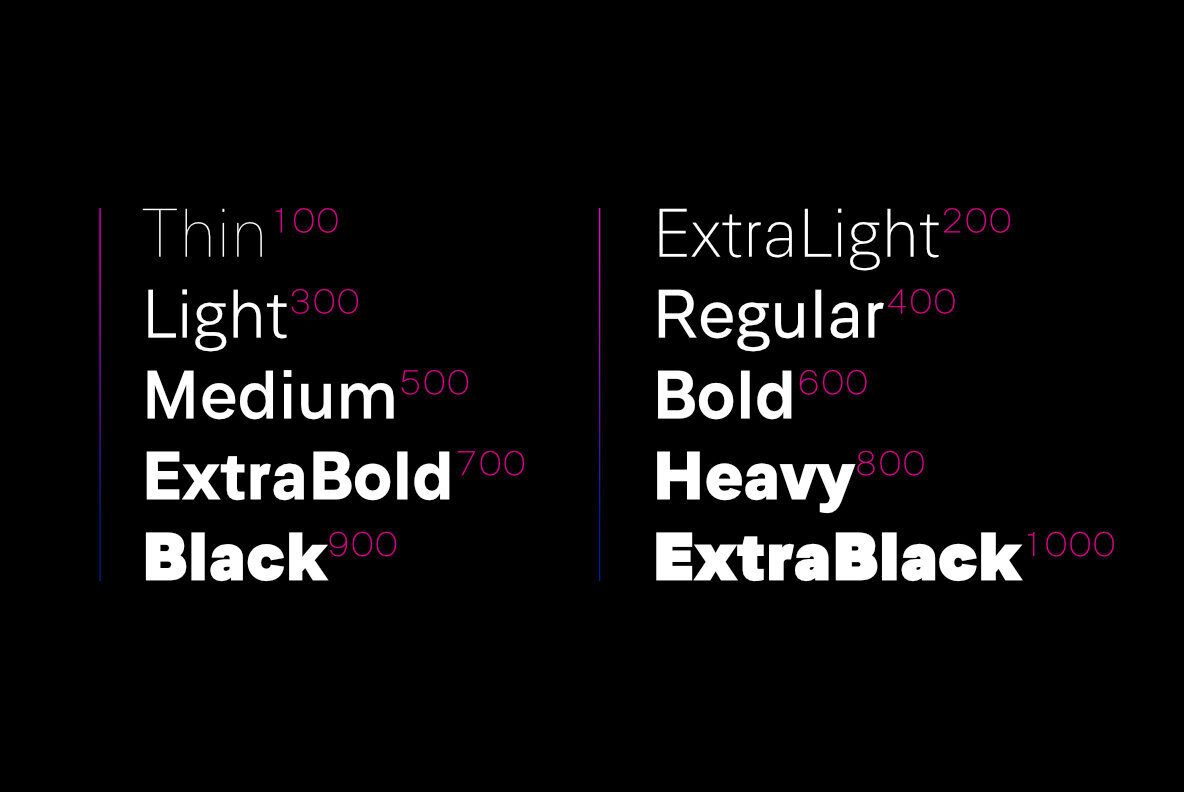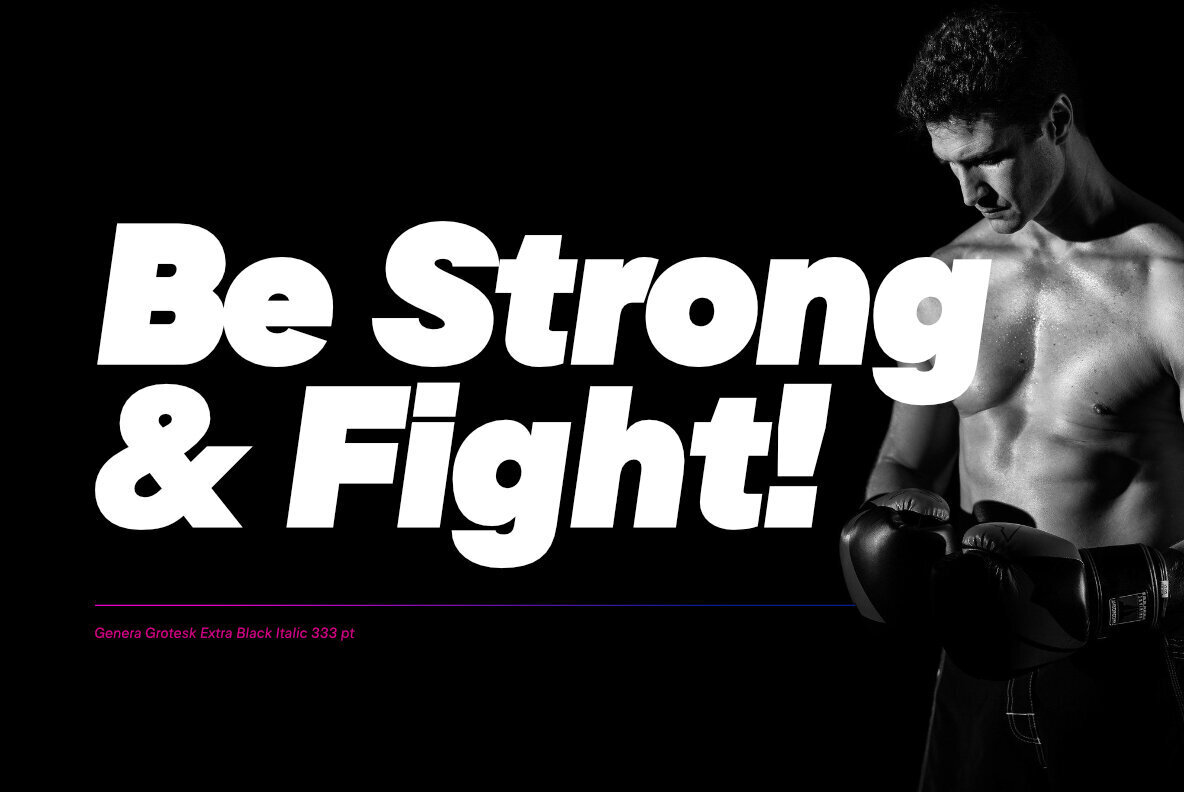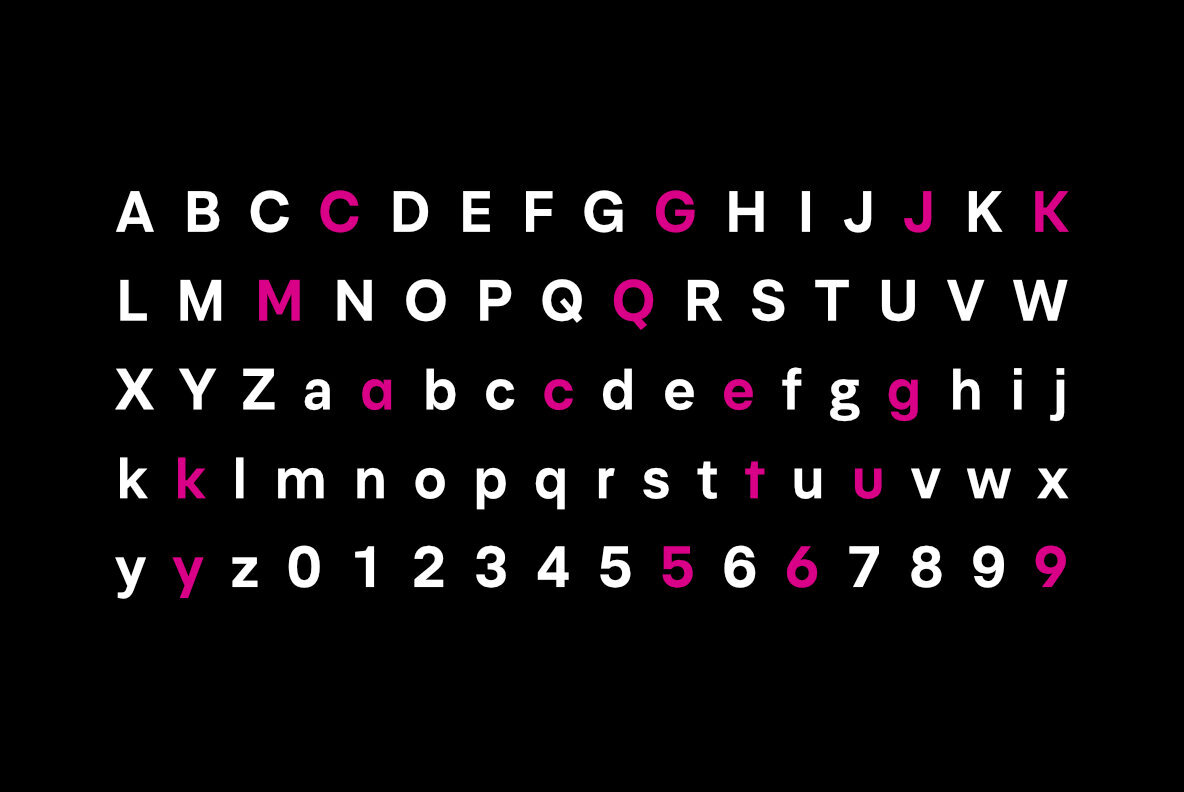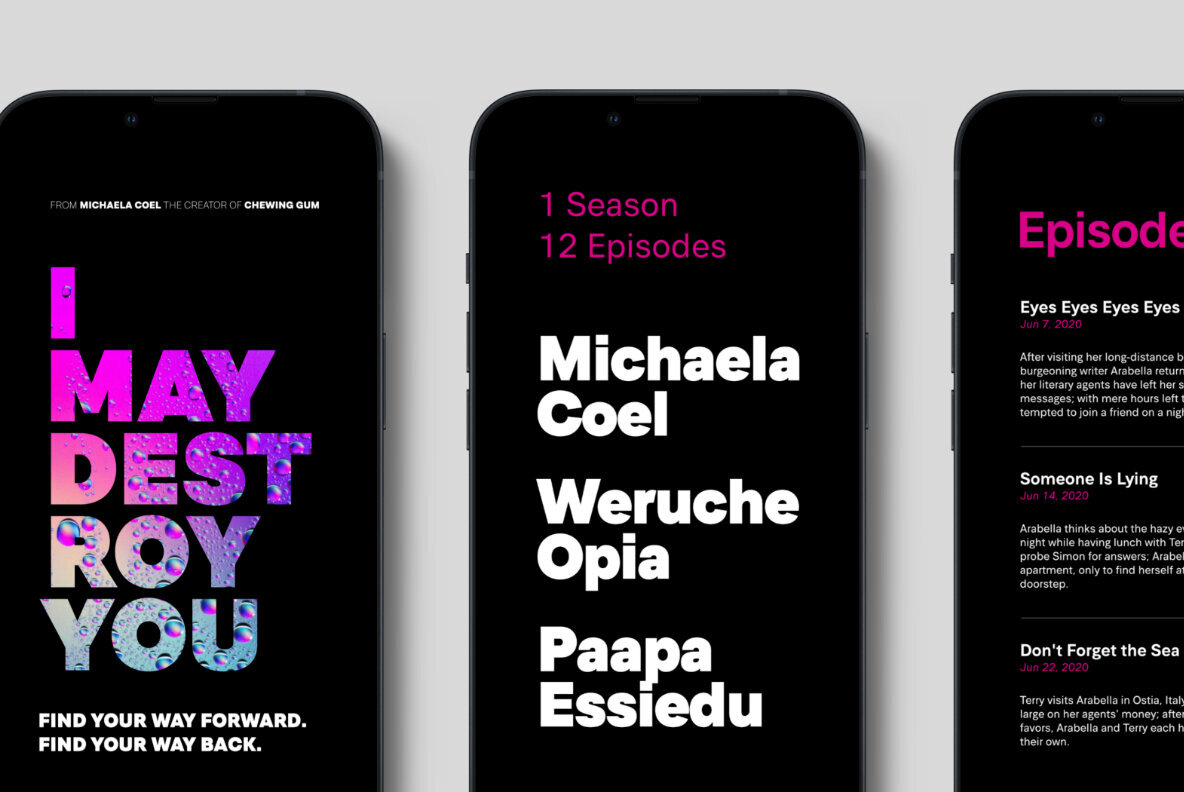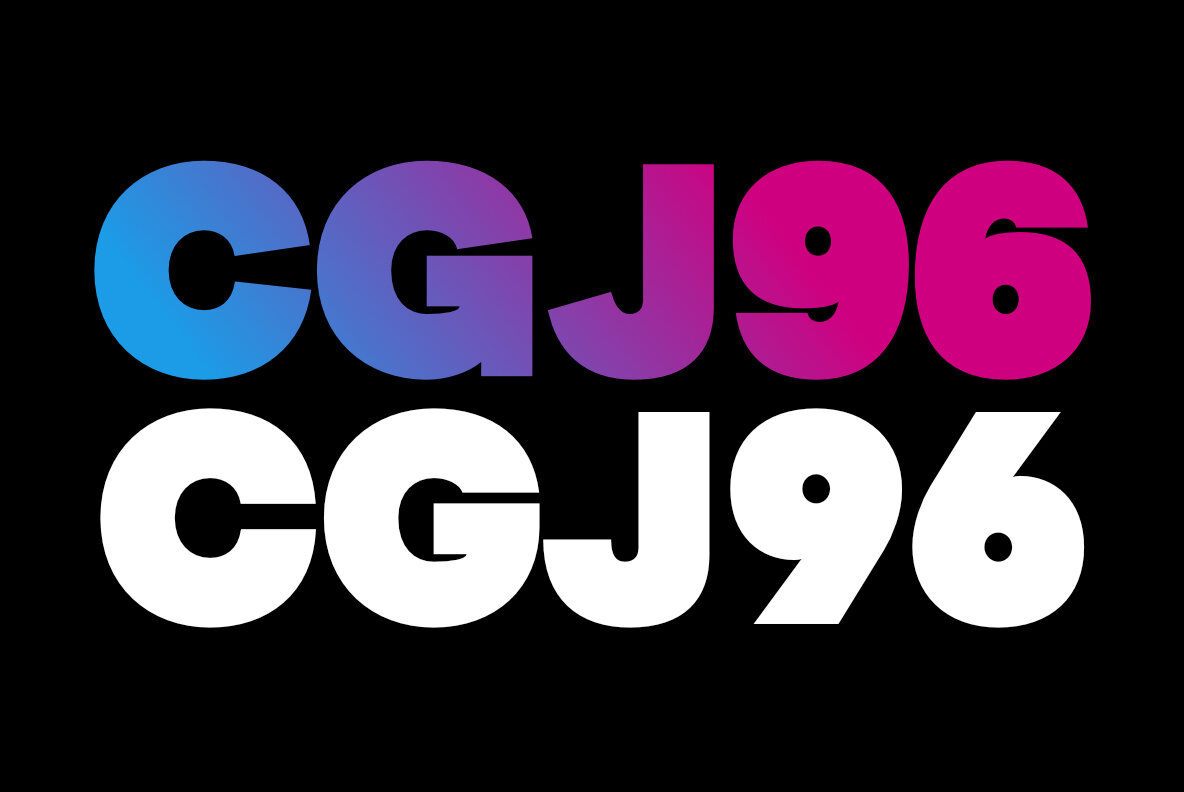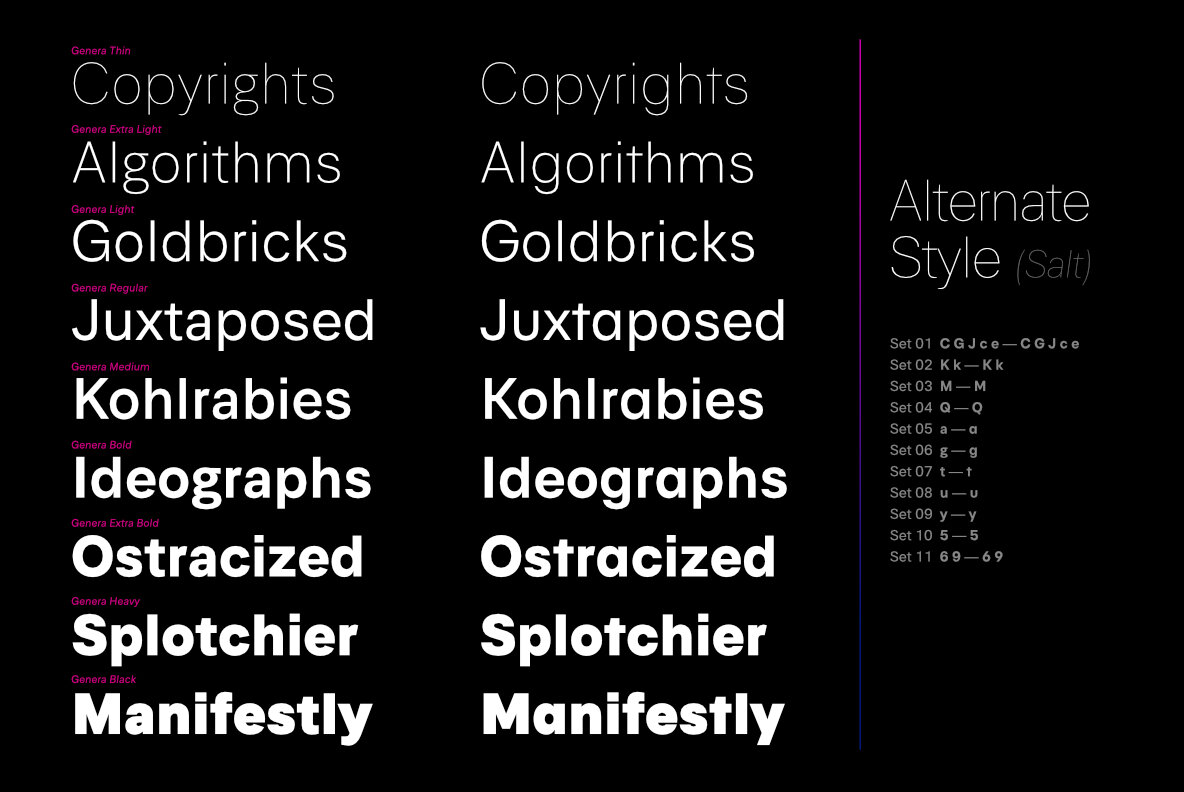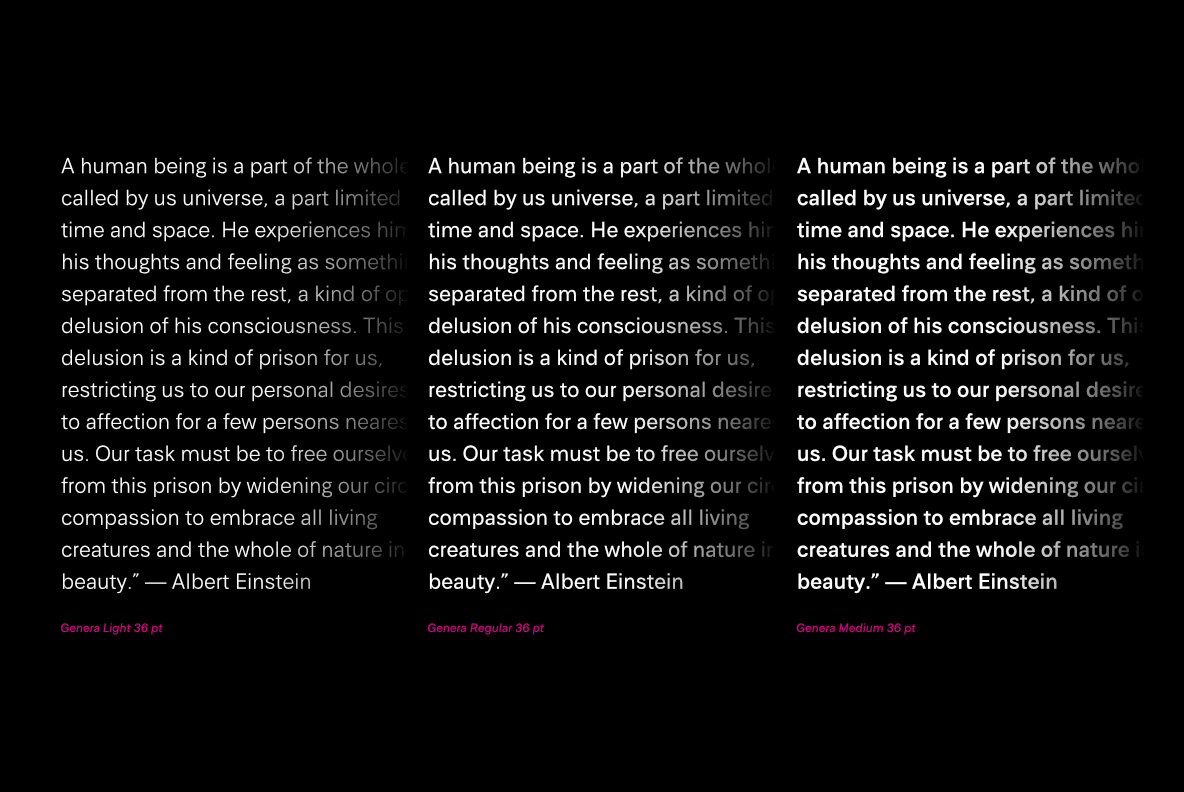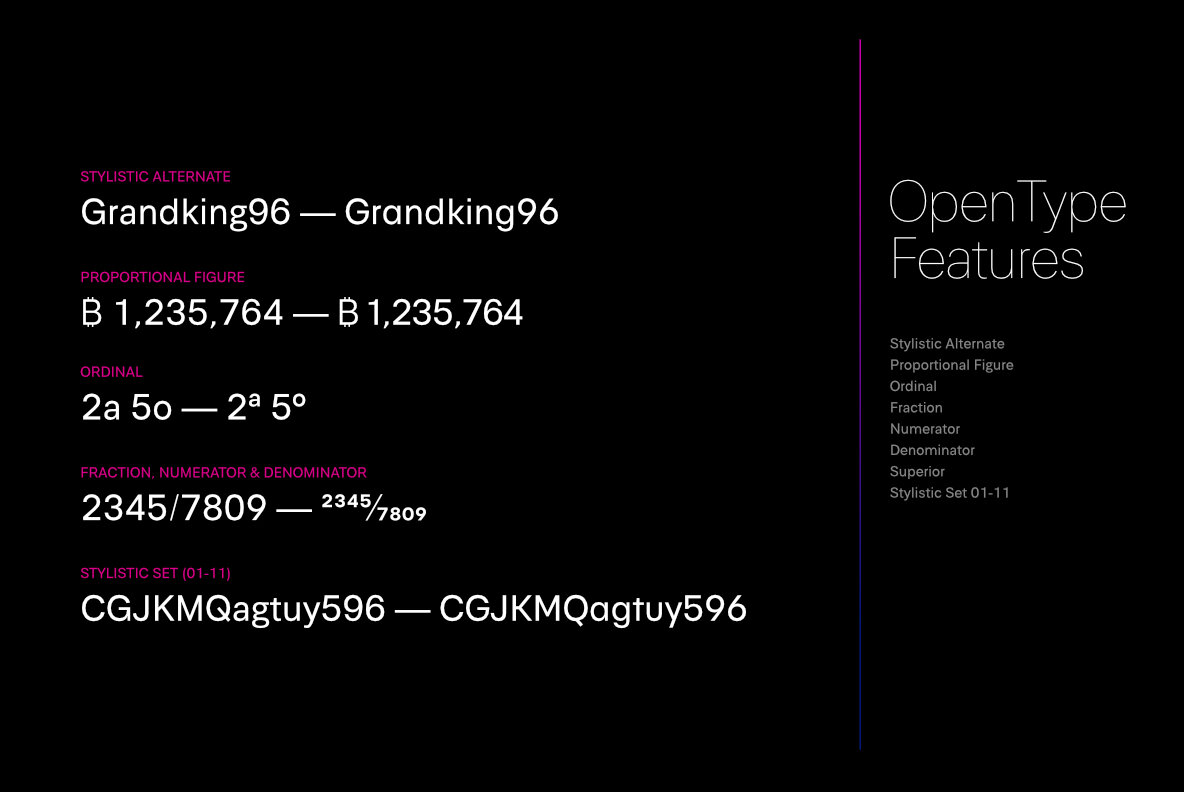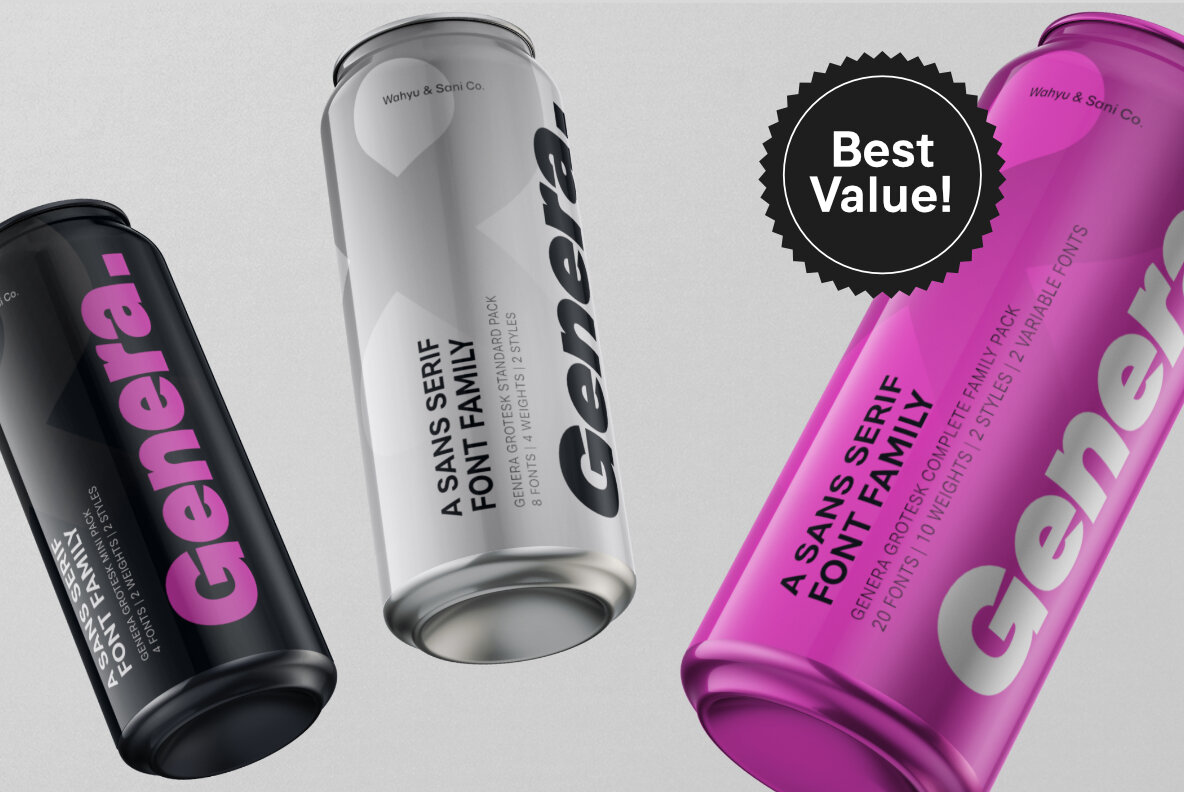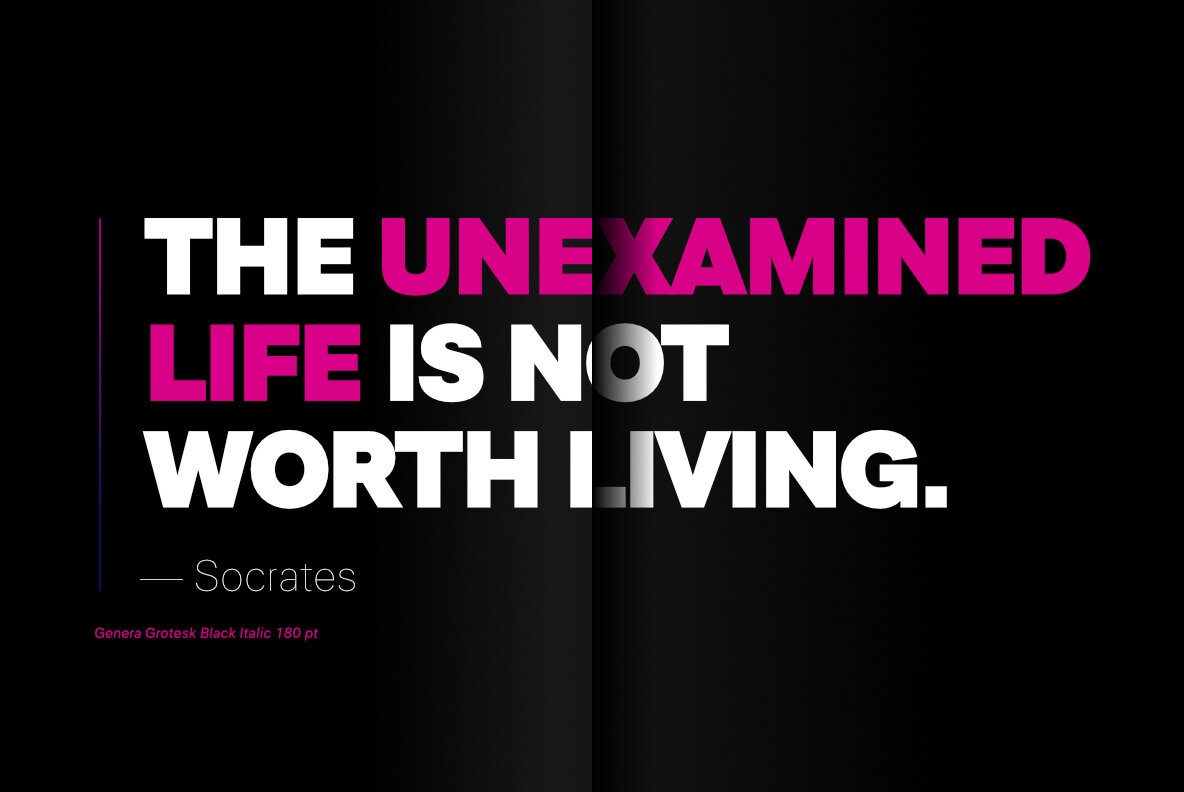
Genera Grotesk Font
Genera Grotesk is a strong & clean modern sans serif font family. It is total rework of Genera typeface which was released in late 2019. This totally new version of its predecessor has closer aperture, some new letterforms, new italic style and new weight distribution ranging from Thin to Extra Black. Genera Grotesk also available in variable fonts for more flexibility in choosing the right weight.
This typeface also equipped with useful OpenType features such as Ordinal, Superior, Stylistic Alternates, Proportional Figure, Fraction, Numerator & Denominator. Each font file covers Western & Eastern Europe Latin language, as well as other Latin based languages – over 200 languages supported! This is a new real multi-purpose typeface that will be perfect for logo, packaging, greeting cards, presentations, headlines, lettering, posters, branding, quotes, titles, magazines, headings, web layouts, mobile applications, art quote, typography, advertising, invitations, packaging design, books, book title, & nearly any other type of creative design you’re working on.